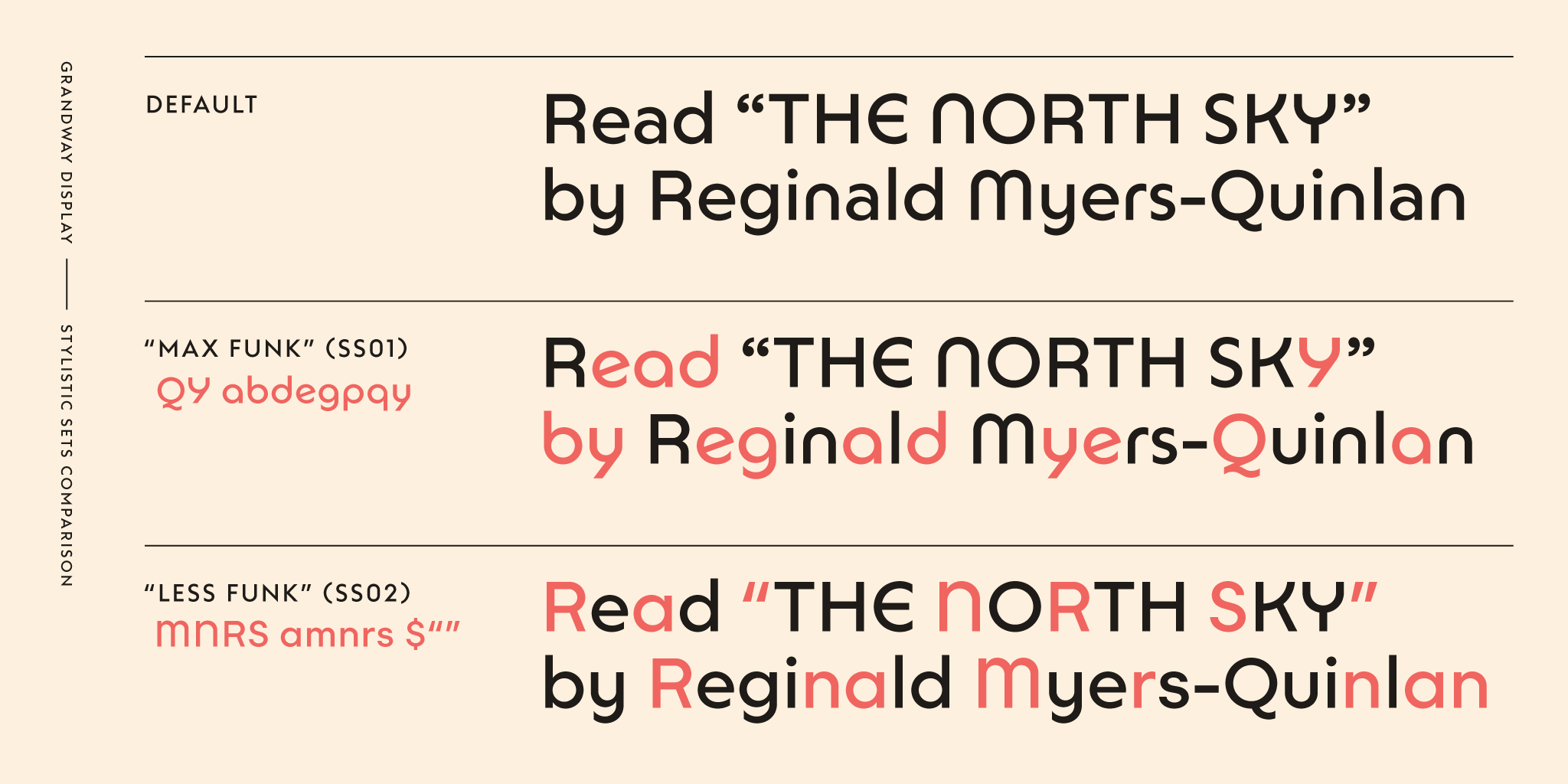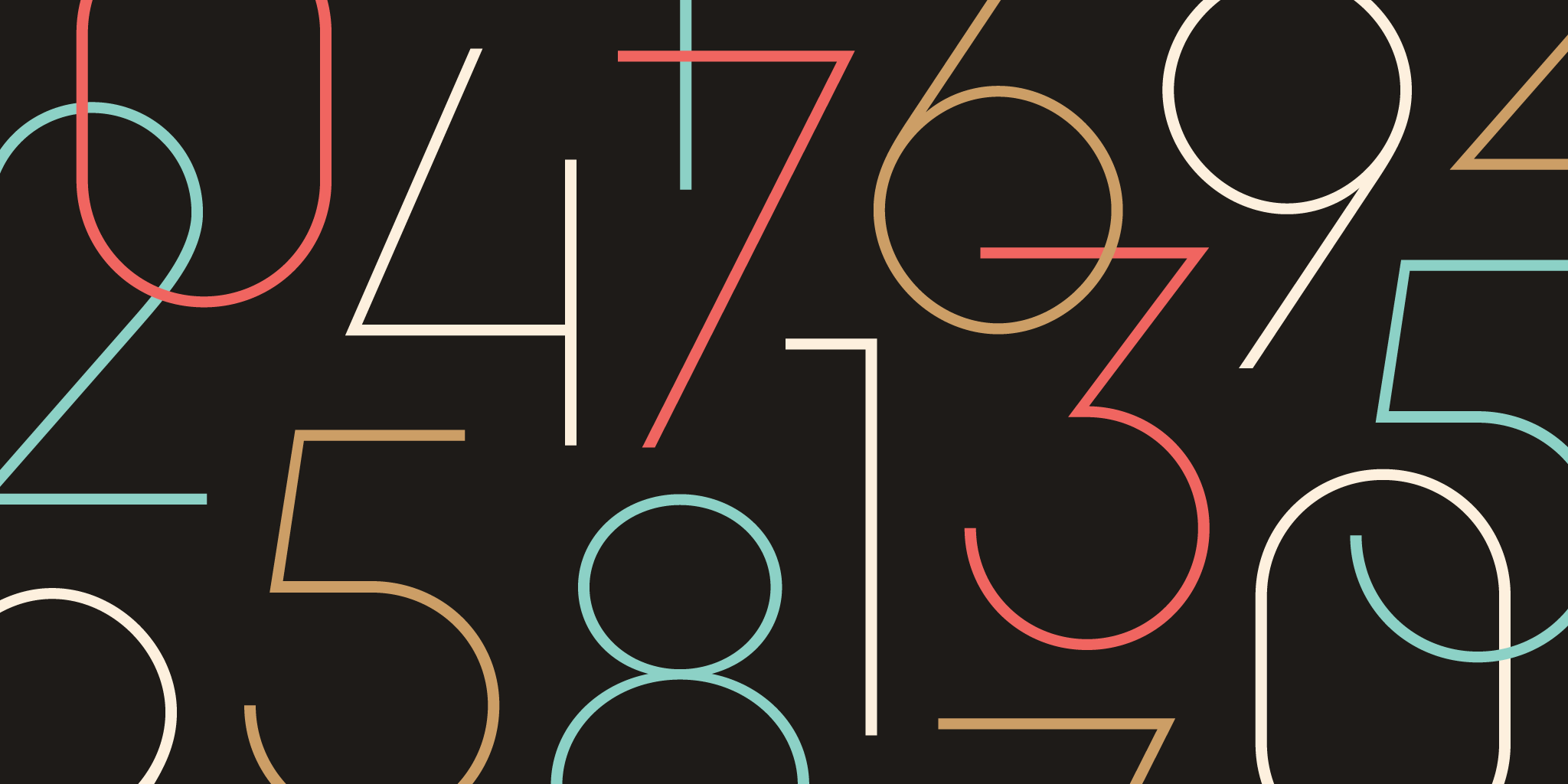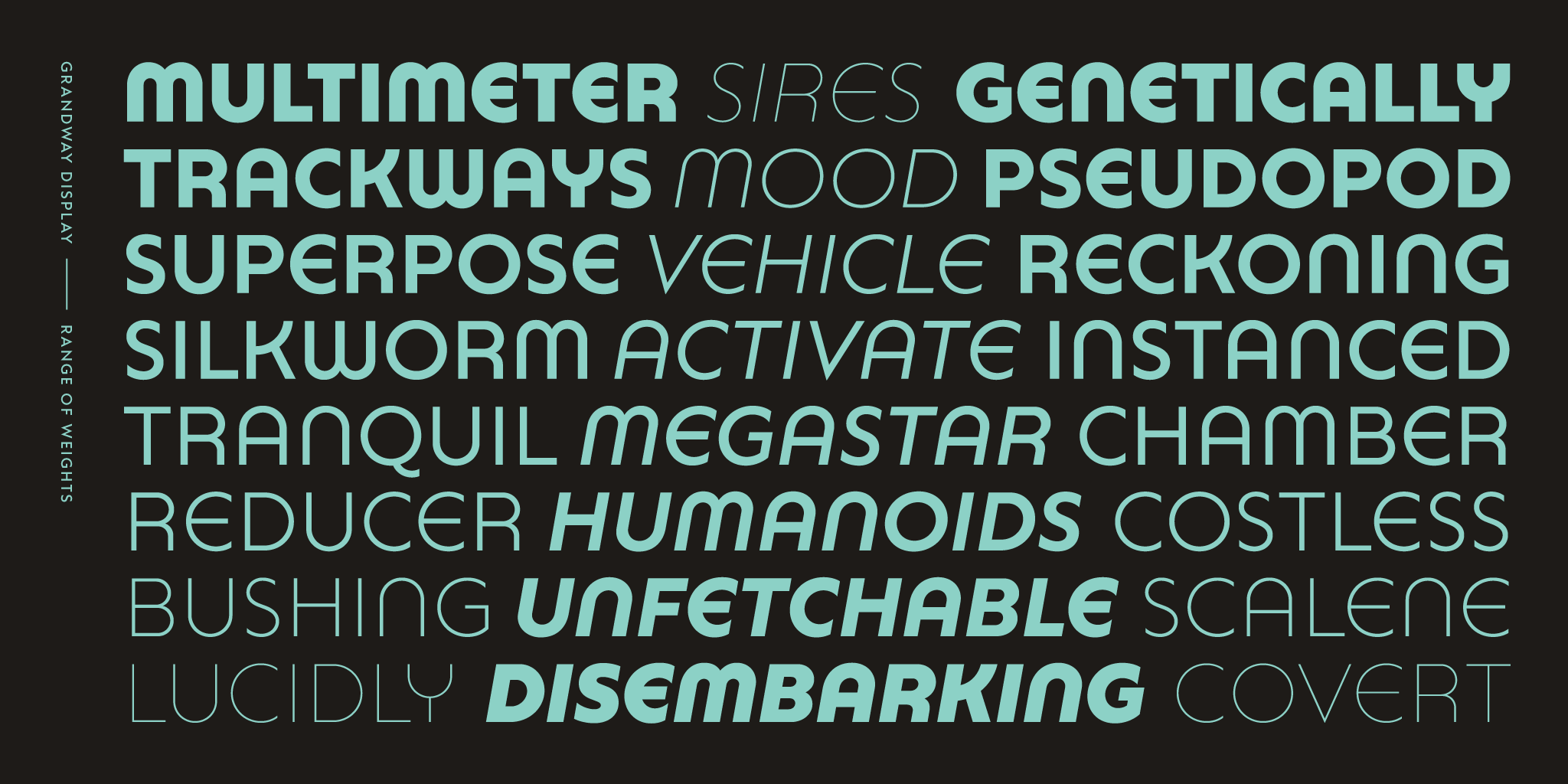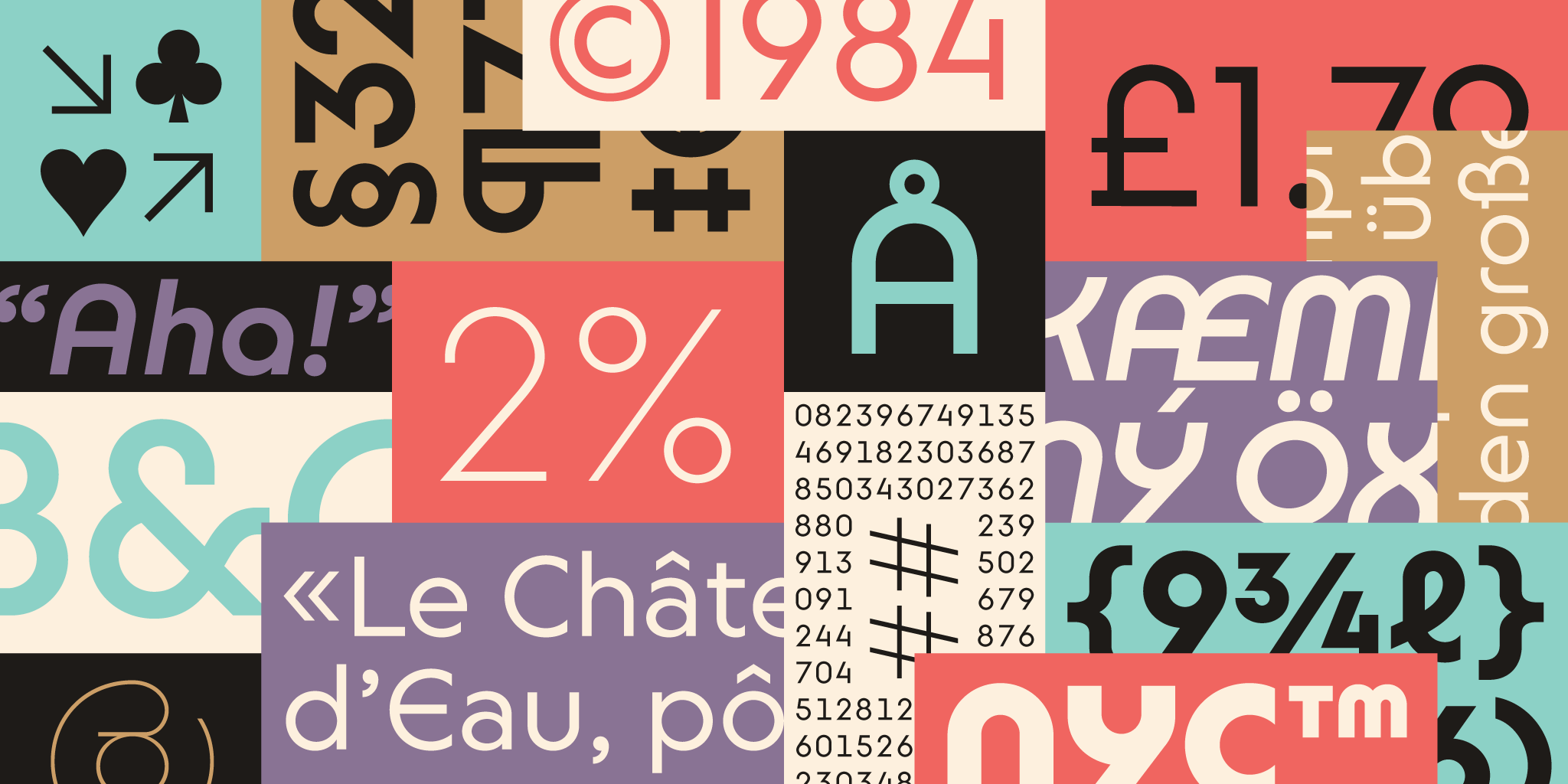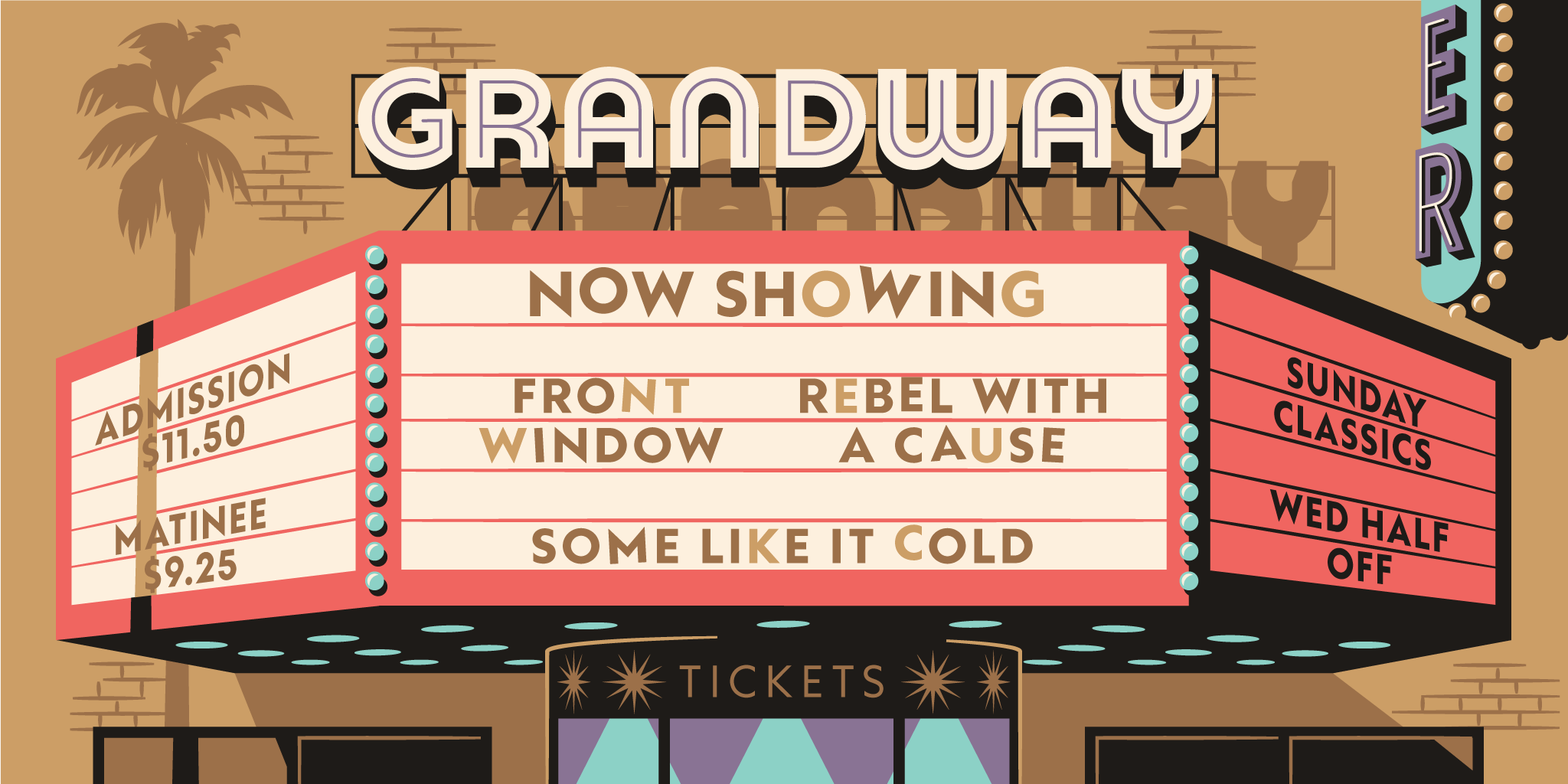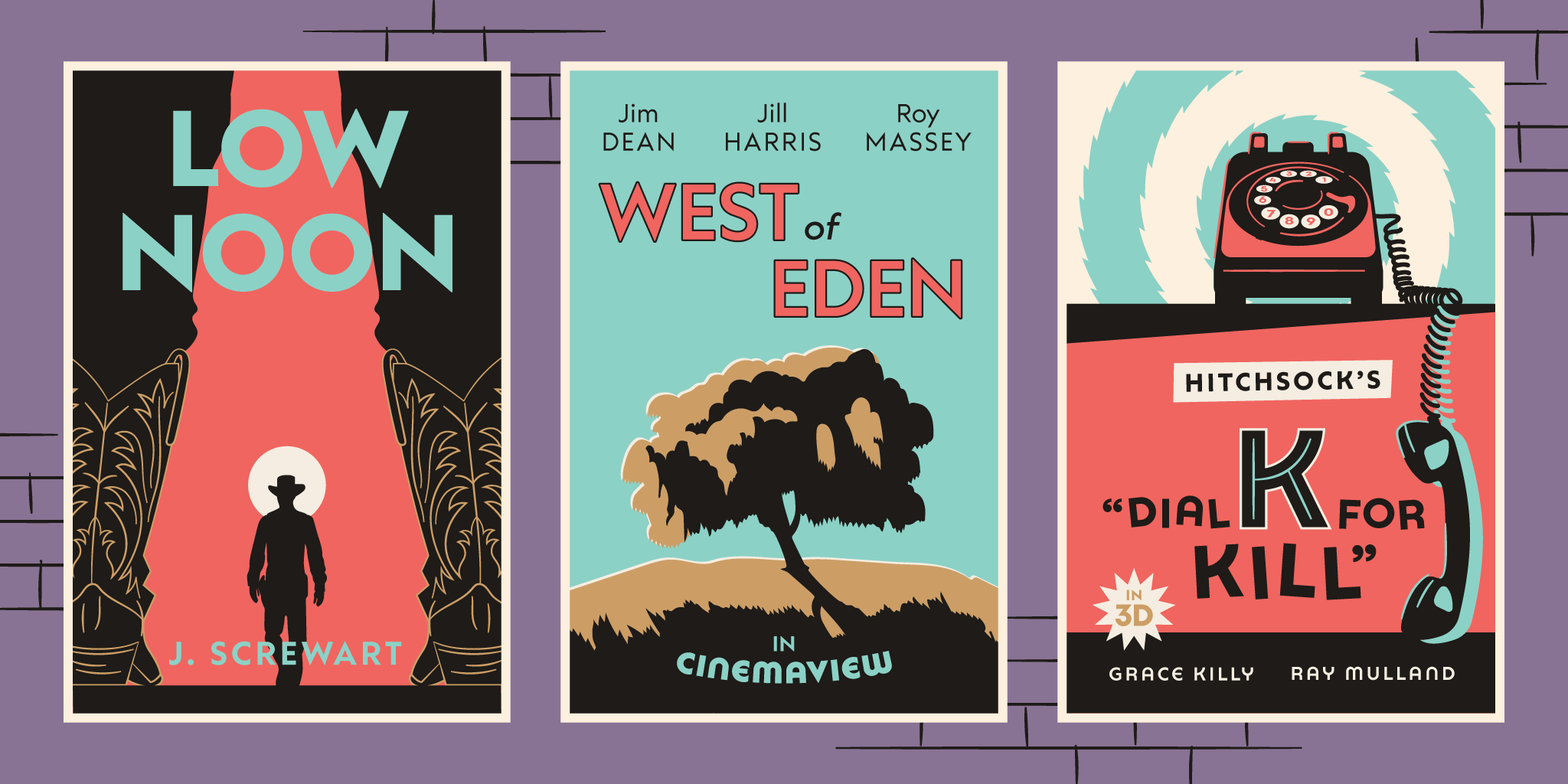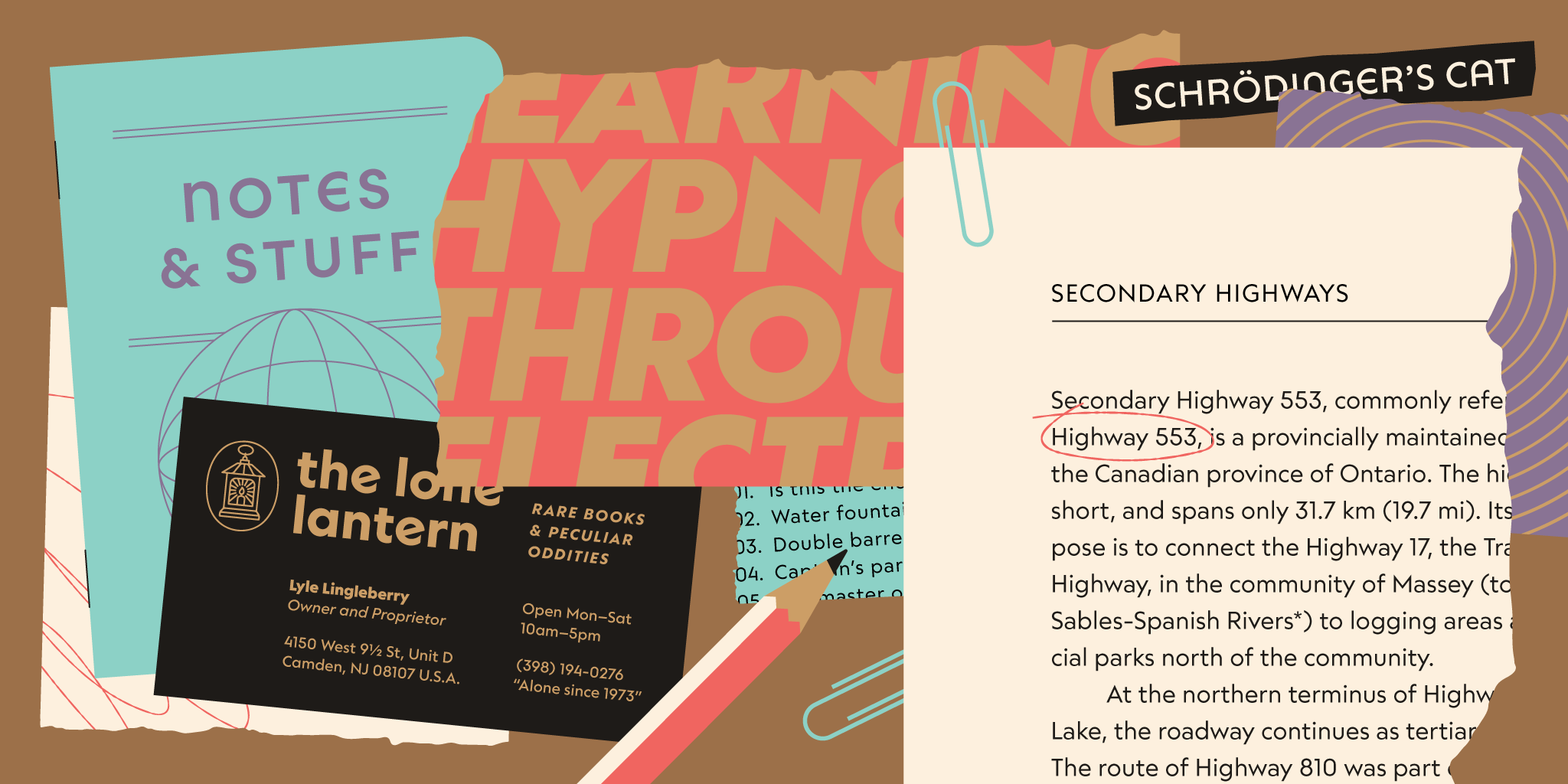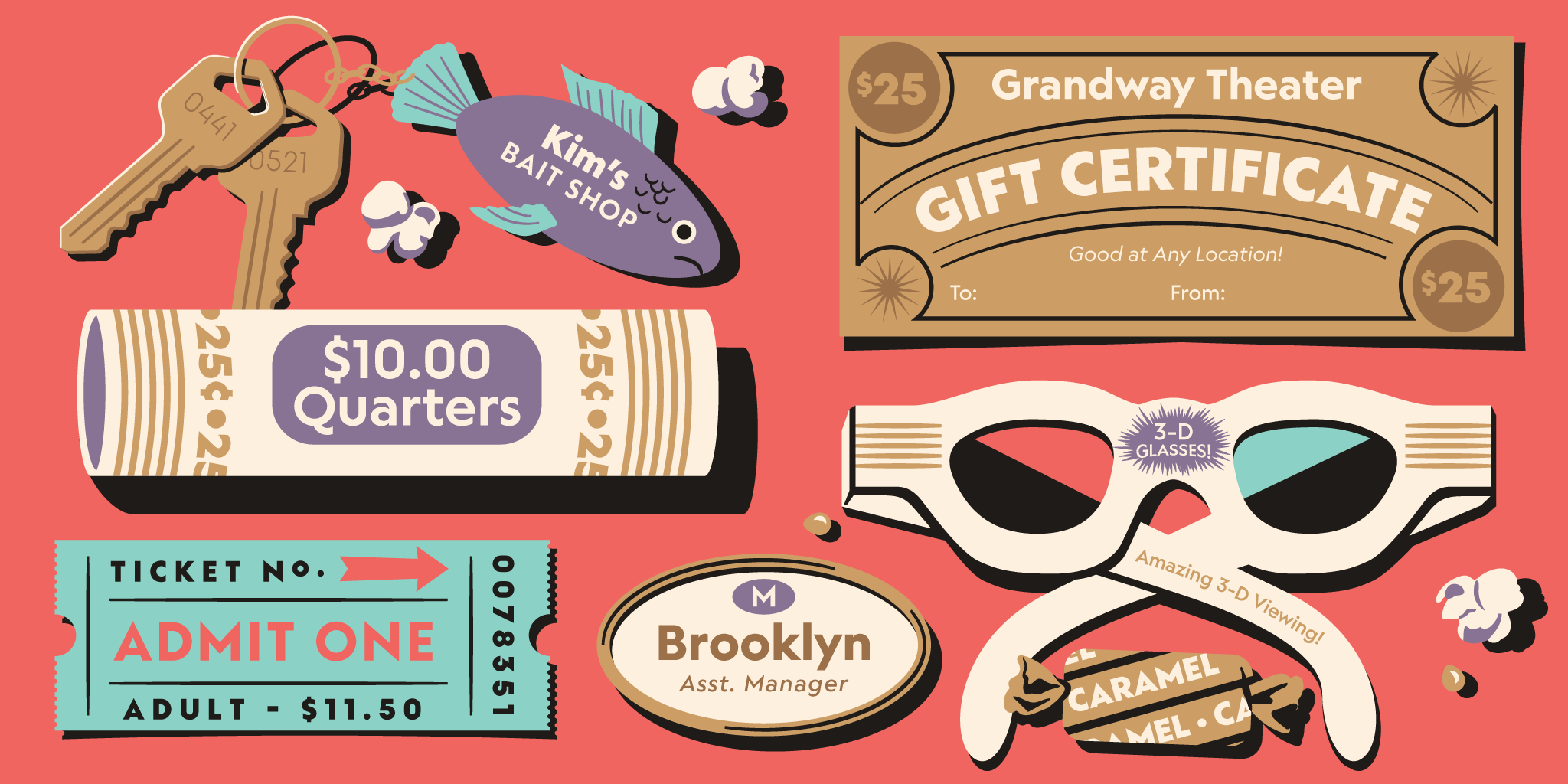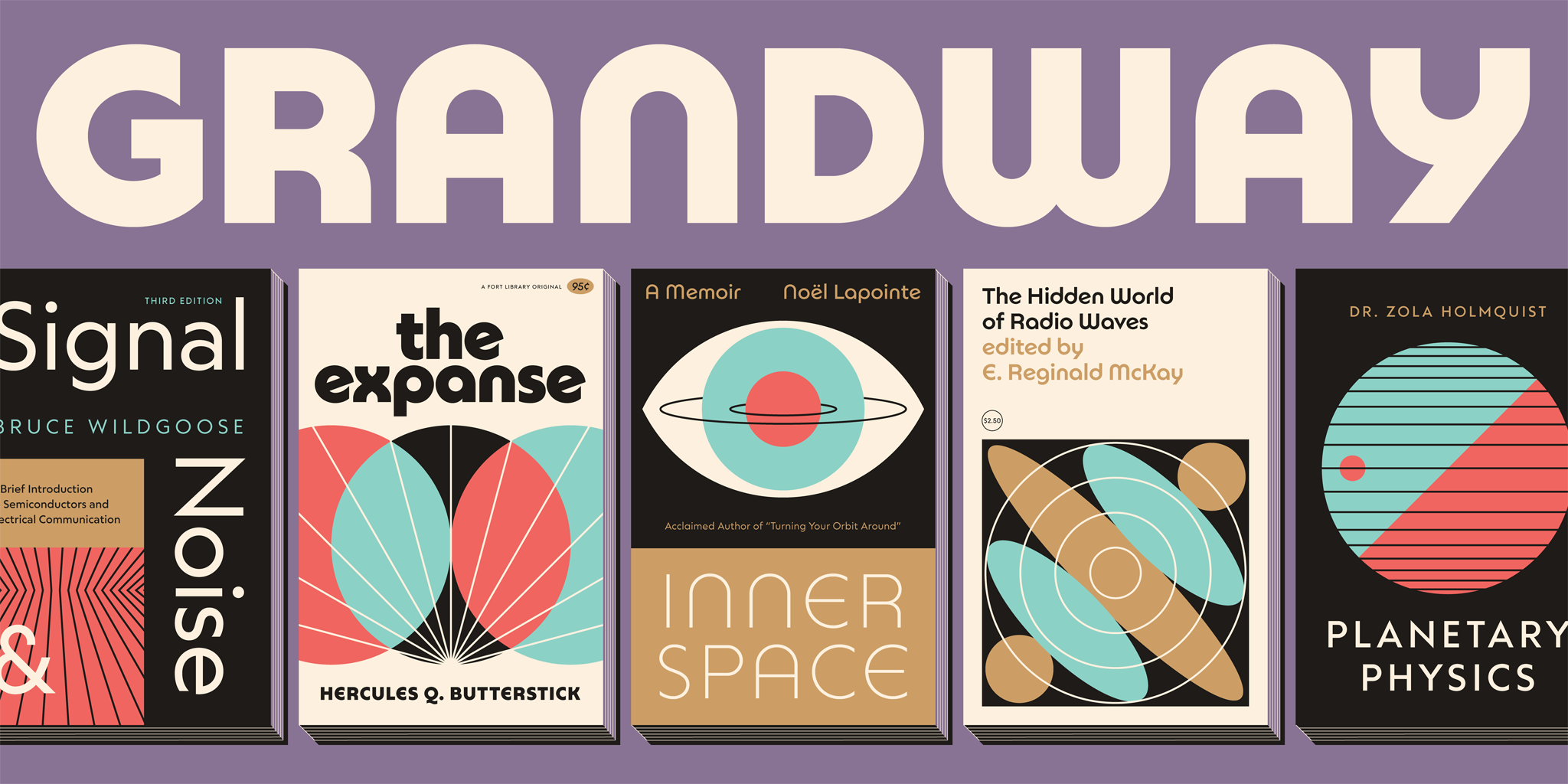
Grandway
Sans
Features
Italics
Fractions
Case-Sensitive Punctuation
Tabular Figures
Display Uppercase Alts
Display Lowercase Alts
Two complementary flavors. One delightful package.
Grandway began as a humble set of quirky capitals that Seth Nickerson created for an ice cream sandwich trailer. Over the years, it has grown and matured out of the practical design needs surrounding it, evolving into two families: a workhorse geometric sans and a “not-so-workhorse” geometric sans sharing the same DNA. Like a good ice cream sandwich, this collection is much more than the sum of its parts—bringing together two complementary flavors into one delightful package.
Grandway mixes practicality with grandeur with the goal of keeping loads of character and warmth in spite of its rigid geometric construction. Grandway Display is the more playful counterpart, taking things in a decidedly more Bauhaus-inspired direction. With rounded, tubular characters and powerful sets of stylistic alternates, the personality can dramatically change with each use. The Grandway Collection encompasses these in a fully-baked, dual-family, 601-character extravaganza complete with italics, a wide range of weights, and plenty of other typographic niceties.